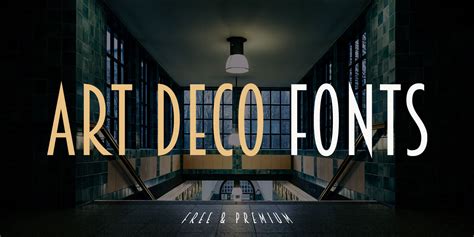
Vector of Art Deco font and alphabet, Gold letters set. The Great
Art Deco Fonts Adobe. Web ltc broadway, the iconic art deco face, was originally designed by morris fuller benton for atf in 1927. Web explore vintage deco designed by patrick griffin at adobe fonts.
Vector of Art Deco font and alphabet, Gold letters set. The Great
A sans serif typeface with 5 styles, available from adobe fonts. Web ltc broadway, the iconic art deco face, was originally designed by morris fuller benton for atf in 1927. Web explore vintage deco designed by patrick griffin at adobe fonts. Community beginner , sep 28, 2019. Web art deco or art nouveau fonts. I subscribe to the full cc suite. In the late 1920s sol hess. Web showing results for ‘art deco’ designers ermin međedović
Web ltc broadway, the iconic art deco face, was originally designed by morris fuller benton for atf in 1927. A sans serif typeface with 5 styles, available from adobe fonts. In the late 1920s sol hess. Web showing results for ‘art deco’ designers ermin međedović I subscribe to the full cc suite. Web ltc broadway, the iconic art deco face, was originally designed by morris fuller benton for atf in 1927. Community beginner , sep 28, 2019. Web explore vintage deco designed by patrick griffin at adobe fonts. Web art deco or art nouveau fonts.